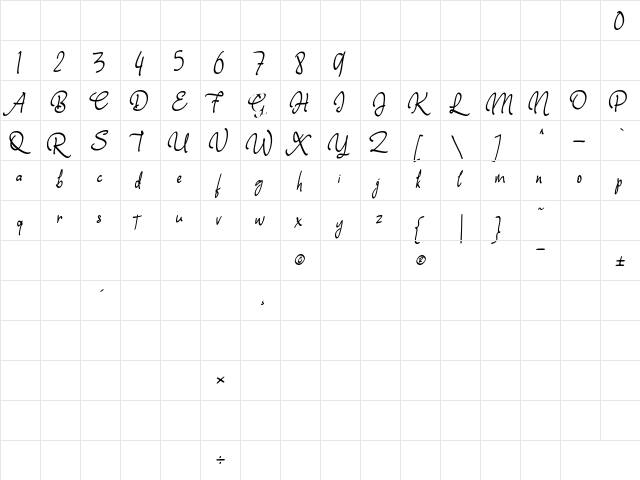
Mariegold Regular
| Designer | Nico Muslib |
Design Context for Mariegold Typeface
Mariegold is a composed and adaptable typeface that performs quietly and consistently across a wide range of design contexts.